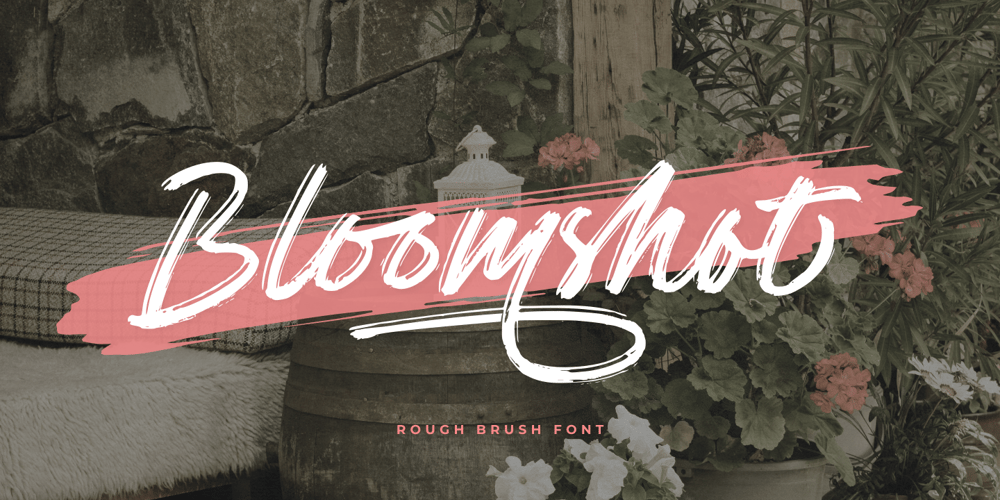
Bloomshot Font Family was designed by Ainun Jinan and published by Jinan Studio. Bloomshot contains 1 styles and family package options. “Bloomshot” is a stylish and dynamic rough brush font designed with a unique and artistic touch. Suitable for your design project needs, such as; logo design, wedding, branding, packaging, promotional materials, business cards, magazines, quotes, and overlays on images. The font’s characteristics make it stand out and add a distinct visual appeal to your projects.Features A set of uppercase and lowercase glyphs Number, symbol, and punctuation Multilingual Support Alternates, swashes, and ligatures